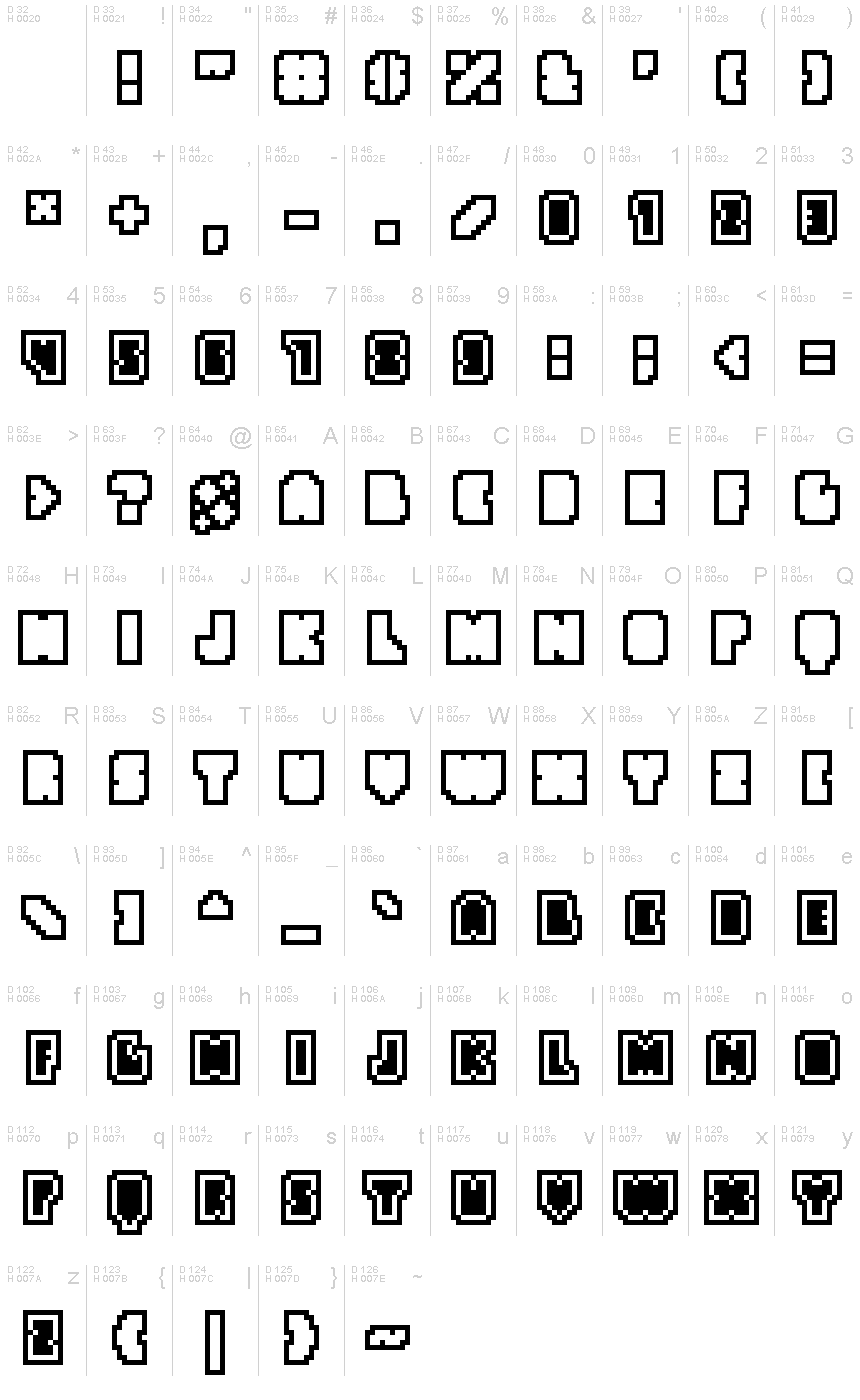
ApplyBeefOutline
A font specifically made for use in Adventure Game Studios. Best viewed at 12 pixel size. Shadow and outline fonts are to be layered over the base font.